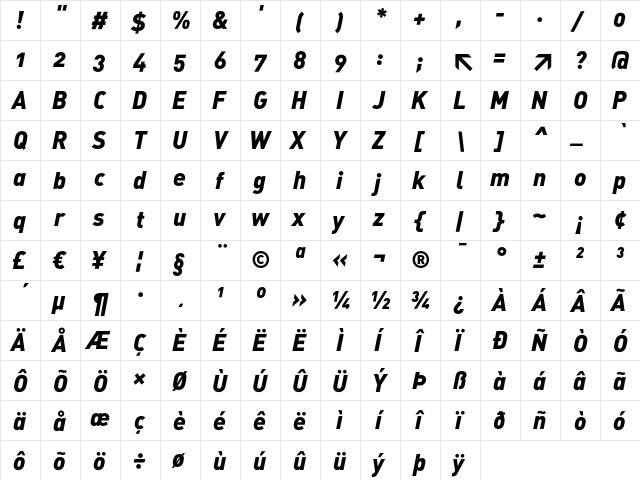
DIN-BlackItalicAlt Regular
Design Context for DIN-BlackItalicAlt Typeface
DIN-BlackItalicAlt is a composed and adaptable typeface that performs quietly and consistently across a wide range of design contexts. Its italic angle brings a sense of urgency and motion to the letterforms.
Pro Tip: Try DIN-BlackItalicAlt for annotation and caption copy alongside an upright companion — the contrast in angle creates a dynamic but ordered typographic system.